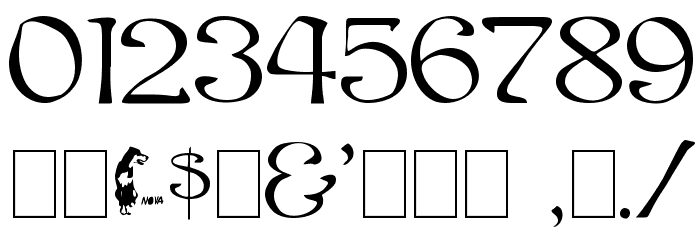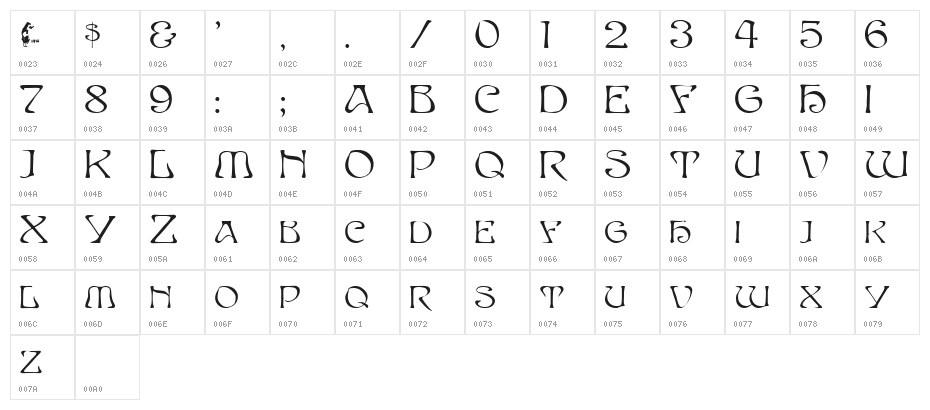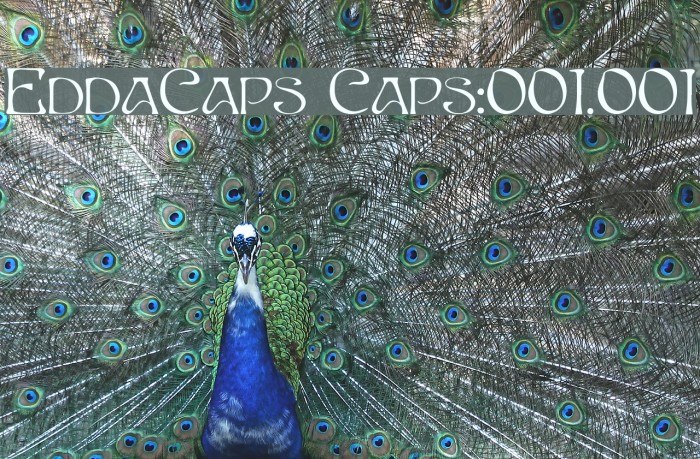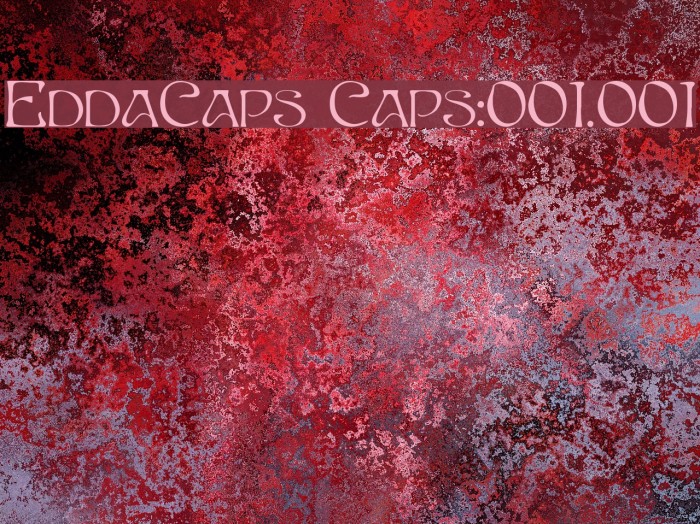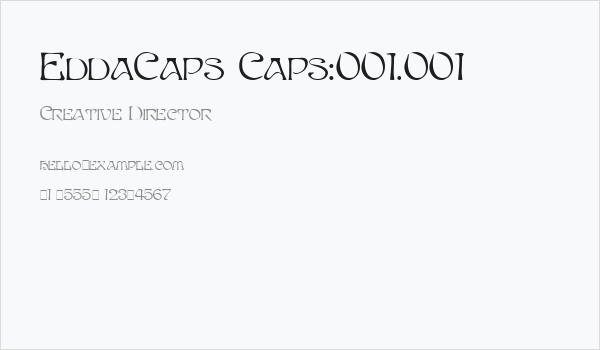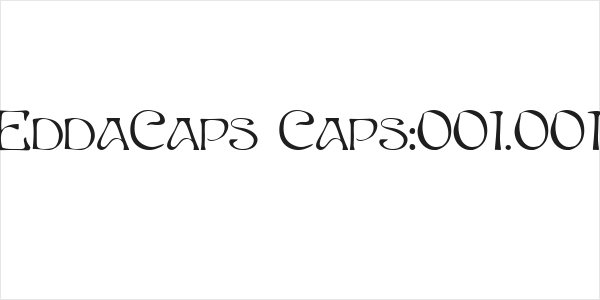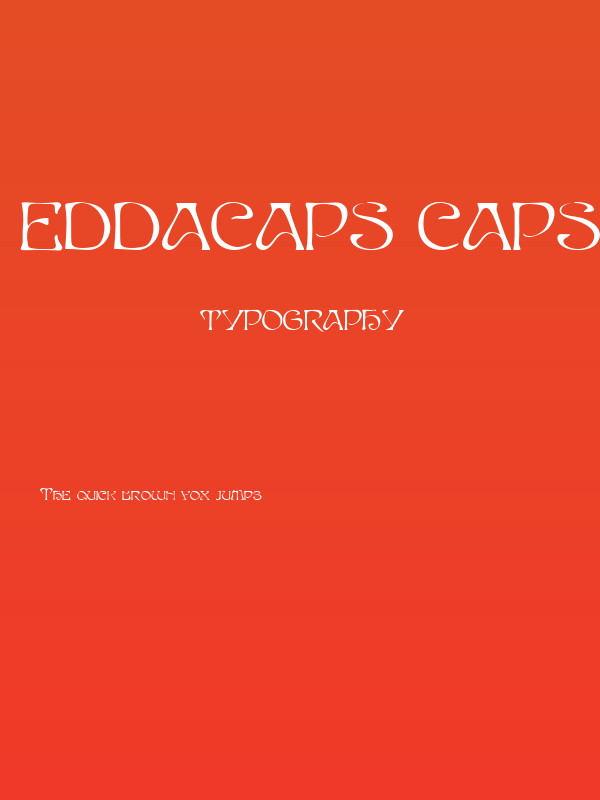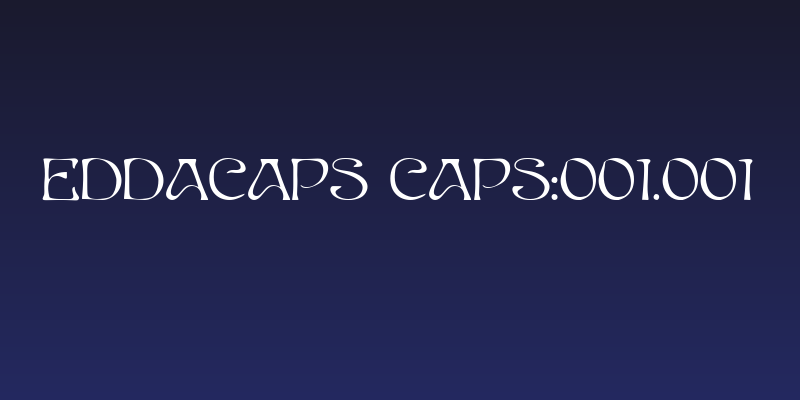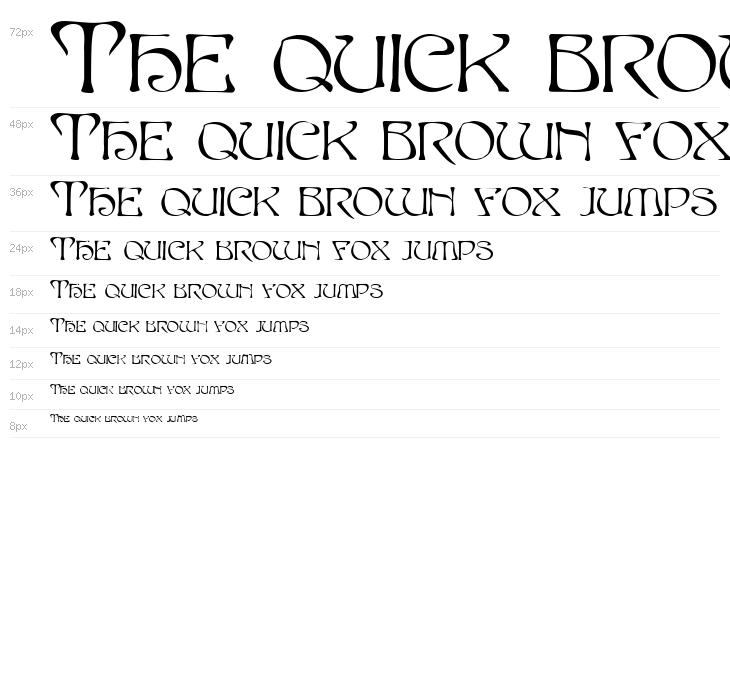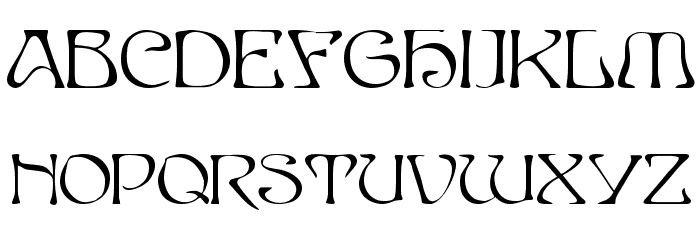
EddaCaps Caps:001.001 Font
EddaCaps Caps:001.001 Description
This font features a unique and artistic style, characterized by its decorative and intricate letterforms. The uppercase letters exhibit a blend of sharp angles and smooth curves, giving them a dynamic and fluid appearance. The lowercase letters maintain this artistic flair, with some characters displaying distinctive swashes and flourishes. The numerals are bold and maintain the same stylistic elements, ensuring consistency across the font. Special characters are creatively designed, adding to the font's overall artistic theme. This font's design is reminiscent of medieval or fantasy aesthetics, making it stand out with its bold and expressive character.
| Proposed Projects | Ideal for fantasy-themed projects, book covers, posters, and branding that requires a unique and artistic touch. |